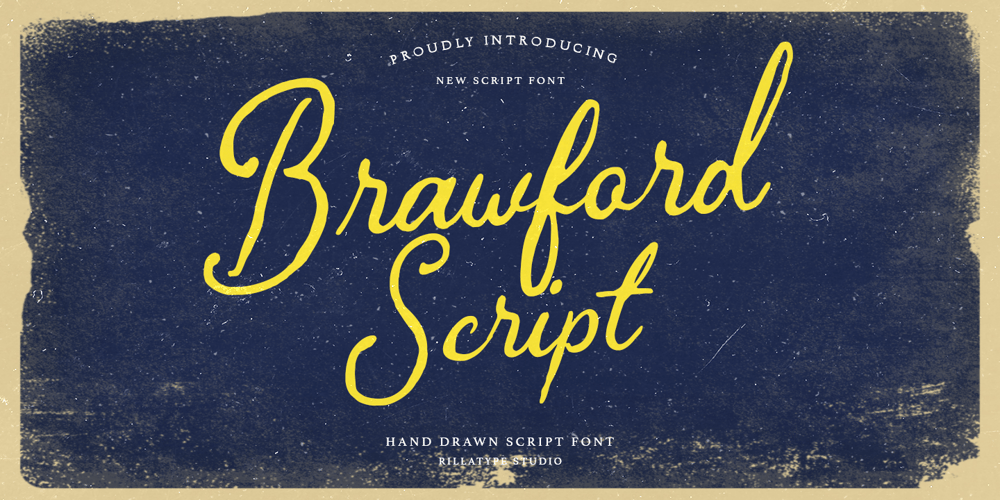
RT Brawford Font Family was designed by Gustian Agung Asprilla and published by Rillatype. RT Brawford contains 1 styles and family package options. Introducing Brawford, a handcrafted script font that exudes natural elegance with a touch of vintage charm. Crafted with meticulous attention to detail, Brawford captures the essence of handwritten beauty, adding a nostalgic flair to your projects. Whether you’re designing invitations, branding materials, or packaging, Brawford brings a sense of authenticity and warmth to your creations. Embrace the timeless appeal of hand-drawn typography with Brawford and infuse your designs with rustic sophistication.